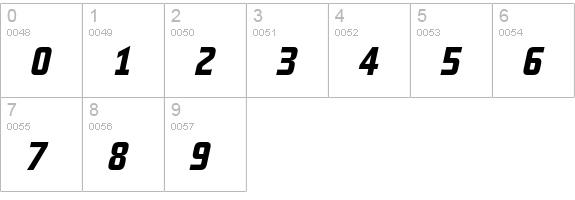
Teuton Normal Bold Italic is the standard, neutral, italic variant in the Teuton typeface family \xE2\x80\x94 well suited to general body text, paragraphs, and standard typographic work.
Introducing the stunning Teuton Normal Bold Italic font, a typeface that exudes elegance, sophistication, and a touch of modernity. This font is the perfect choice for those seeking to make a bold statement in their designs, whether for branding, advertising, or editorial purposes. Designed with meticulous attention to detail, Teuton Normal Bold Italic is a harmonious blend of strong, bold lines and graceful, italicized curves. It effortlessly captures attention and commands a powerful presence on any medium, from print to digital. What sets Teuton Normal Bold Italic apart is not just its exceptional design, but also its accessibility. This font is freely available to download at FontsMarket.com, ensuring that designers, creatives, and enthusiasts alike can easily incorporate this remarkable typeface into their projects. With its versatility and timeless appeal, Teuton Normal Bold Italic is the perfect choice for a wide range of design applications. It can effortlessly elevate your branding materials, making your logo and marketing collateral stand out from the crowd. Its unique style adds a touch of sophistication to editorial layouts, ensuring that your content is visually captivating and engaging. Whether you're designing a sleek magazine spread, a captivating website, or a striking poster, Teuton Normal Bold Italic is the font that will enhance and elevate your creative vision. Its clean lines, bold presence, and refined curves make it a standout choice for those seeking to make a lasting impression. Download Teuton Normal Bold Italic for free at FontsMarket.com and unlock a world of design possibilities. With this font, you have the power to create captivating visuals that leave a lasting impact. So go ahead, unleash your creativity and let Teuton Normal Bold Italic make your designs truly remarkable.